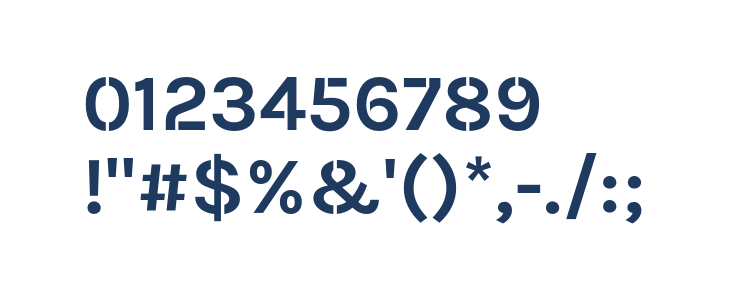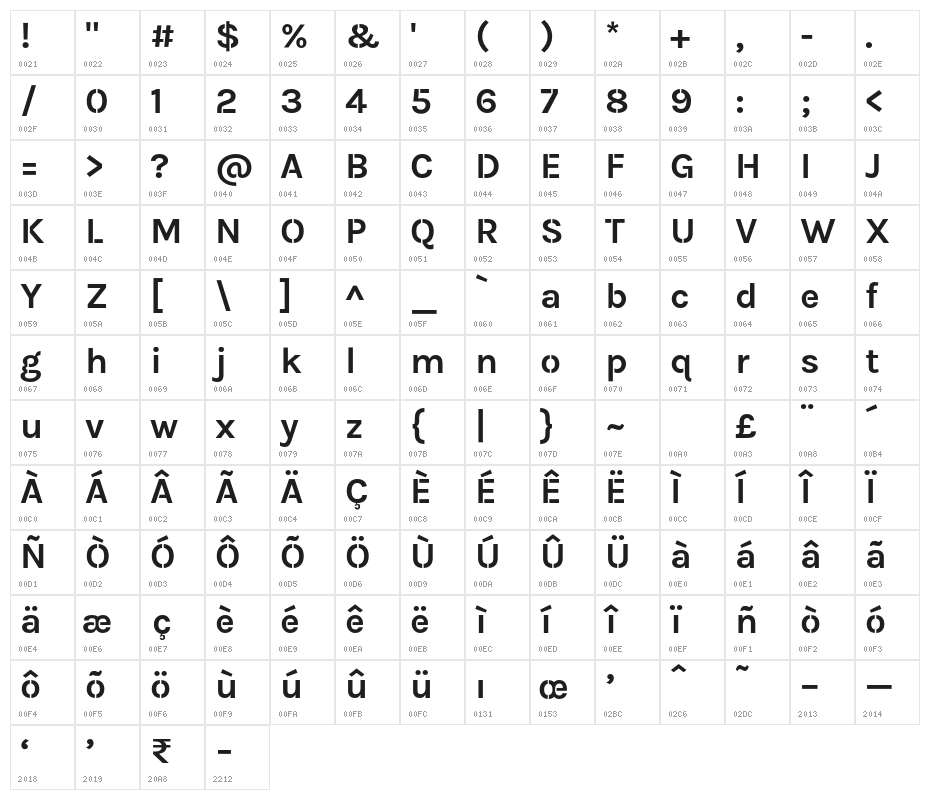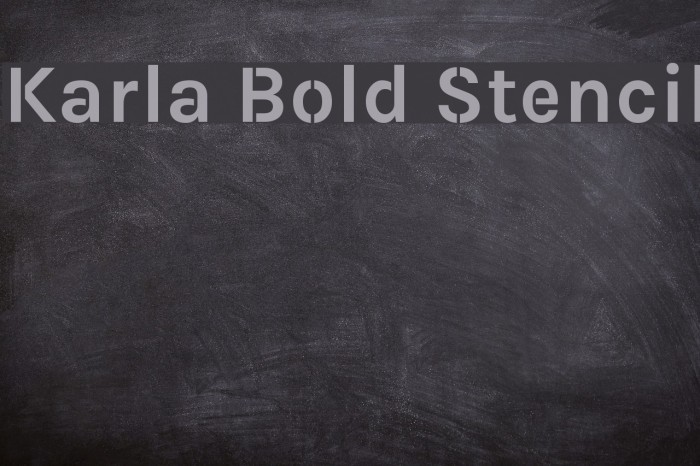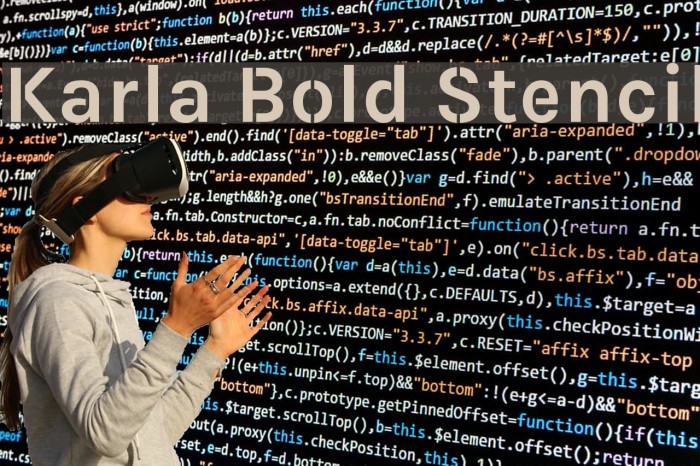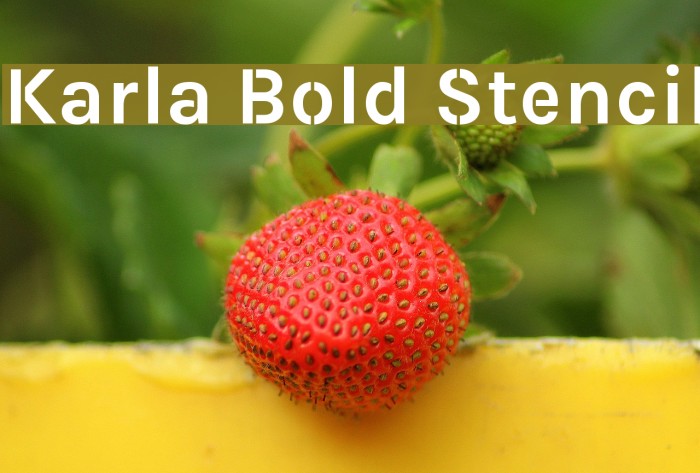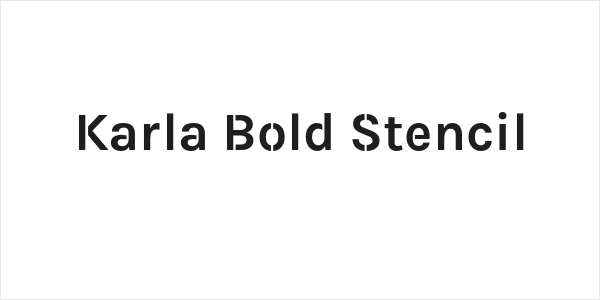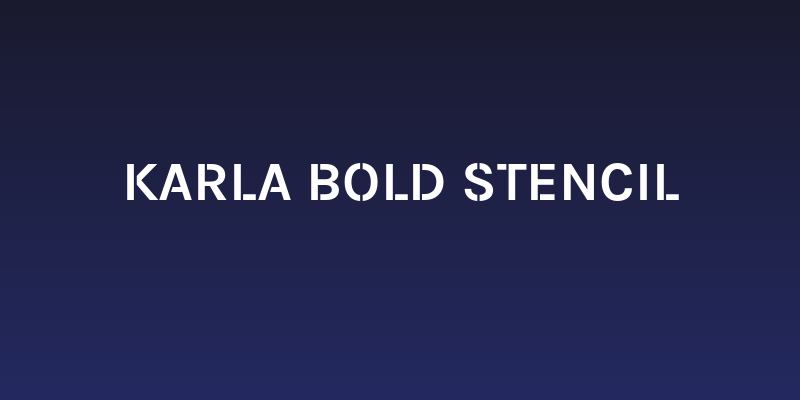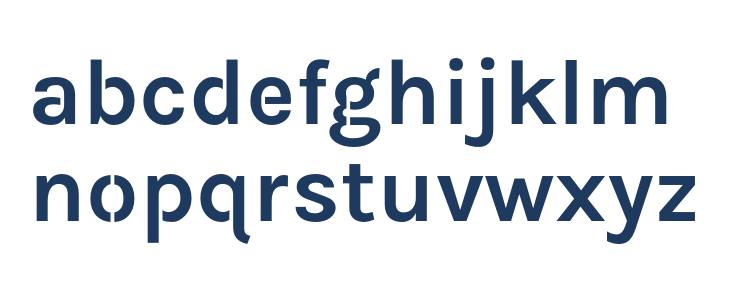
Karla Bold Stencil Font
Karla Bold Stencil Description
This font features a bold, stencil-like design with clean, geometric shapes. The uppercase letters are robust and impactful, while the lowercase letters maintain a consistent weight and structure. The numerals are clear and easily readable, making them suitable for various applications. The special characters are distinct and well-defined, adding versatility to the font. Its stencil style gives it a modern, industrial feel, making it ideal for projects that require a strong visual presence.
| Proposed Projects | Ideal for branding, posters, signage, and any project needing a bold, modern look. |